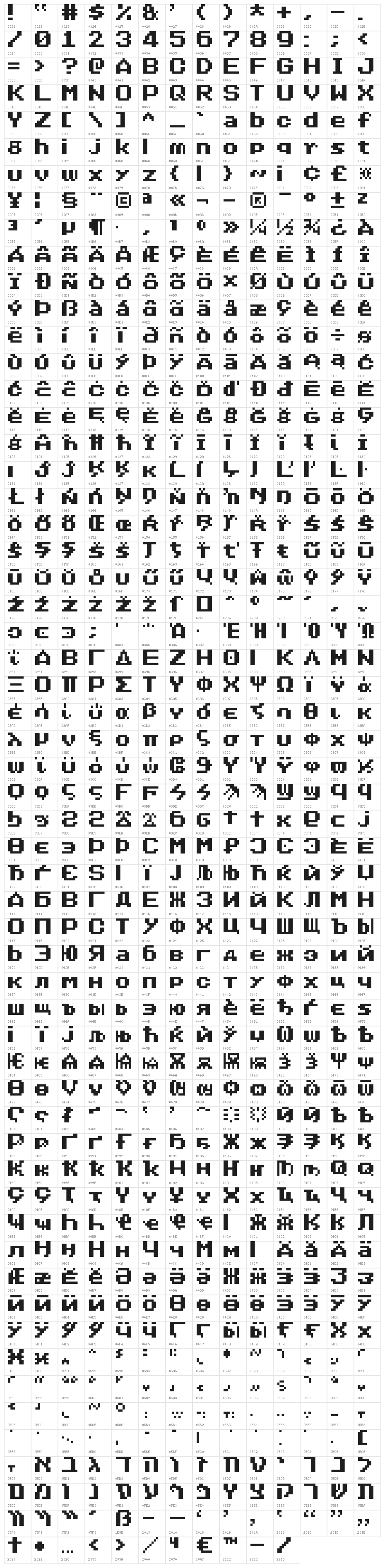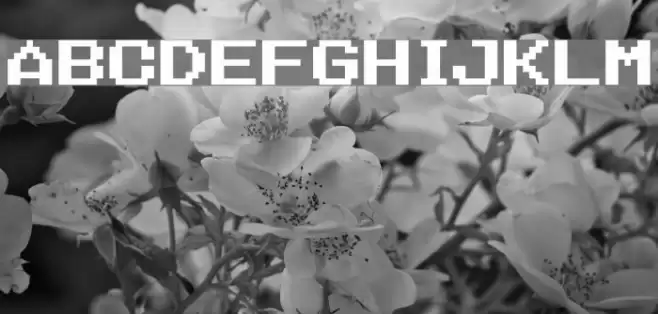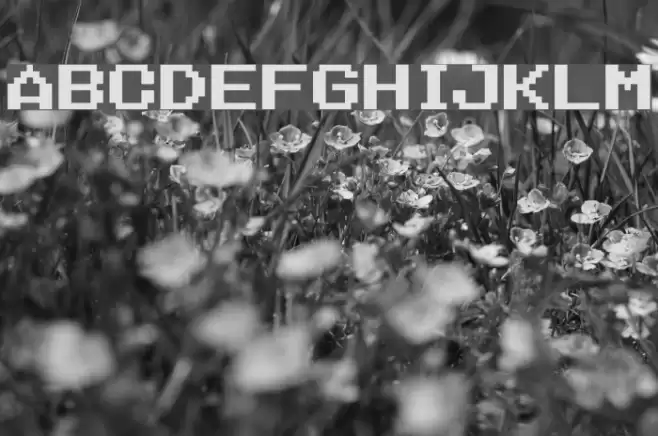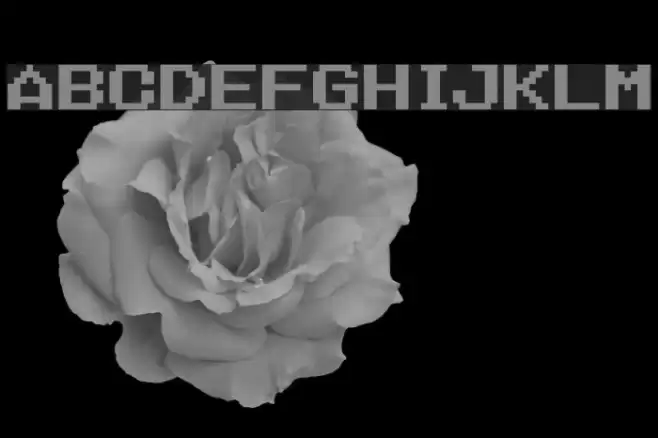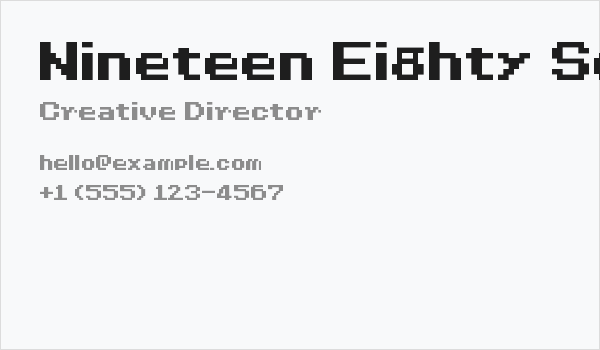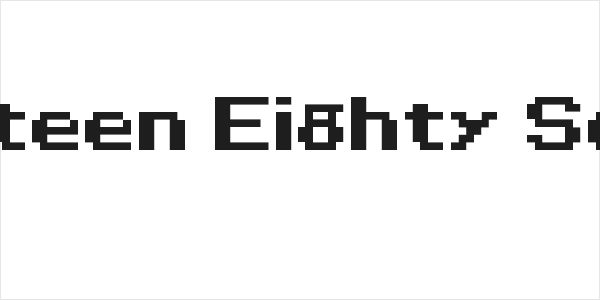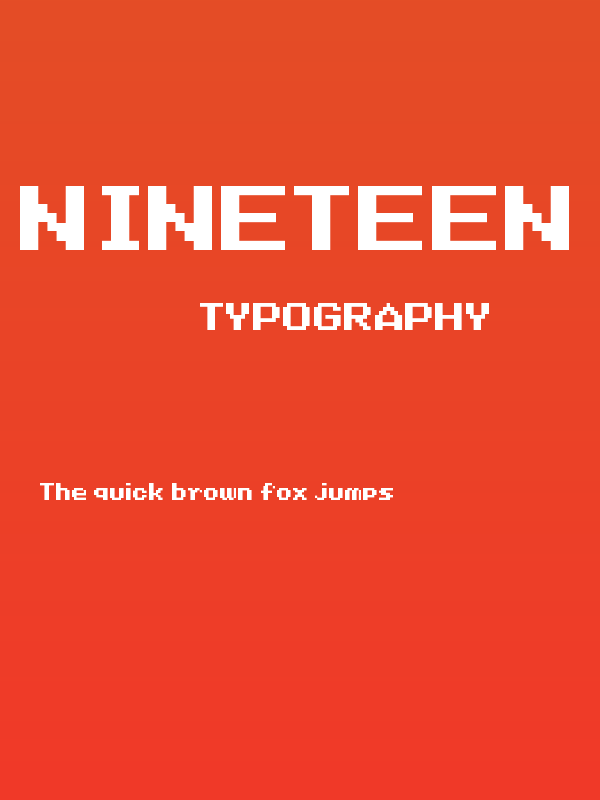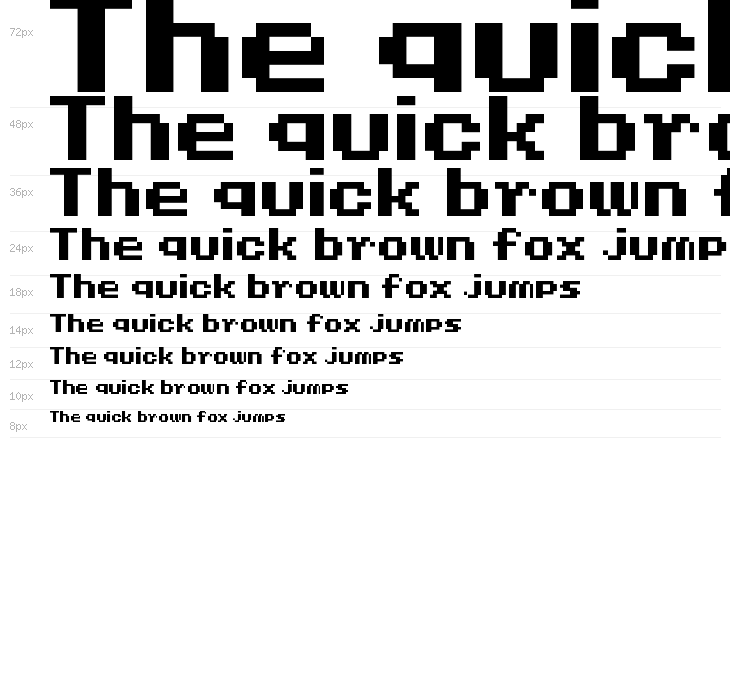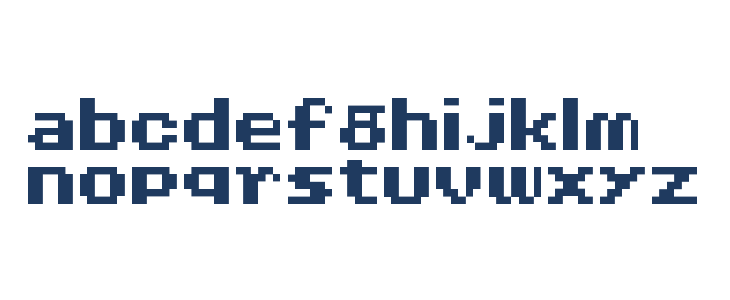
Nineteen Eighty Seven Font
Nineteen Eighty Seven Description
This font features a bold, pixelated style reminiscent of early digital displays and retro video games. Each character is constructed with a blocky, grid-like appearance, emphasizing a strong geometric form. The uppercase and lowercase letters maintain a consistent height, contributing to a uniform and cohesive look. Numbers and special characters follow the same pixelated design, ensuring visual harmony across all glyphs. The font's nostalgic aesthetic is perfect for projects aiming to evoke a sense of the 1980s digital era, making it ideal for retro-themed designs.
| Proposed Projects | Ideal for retro video game designs, digital-themed posters, and nostalgic branding projects. |